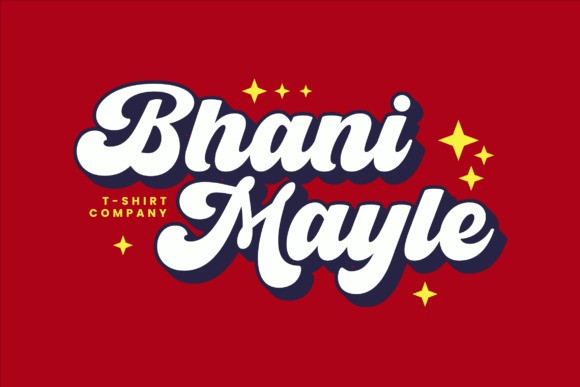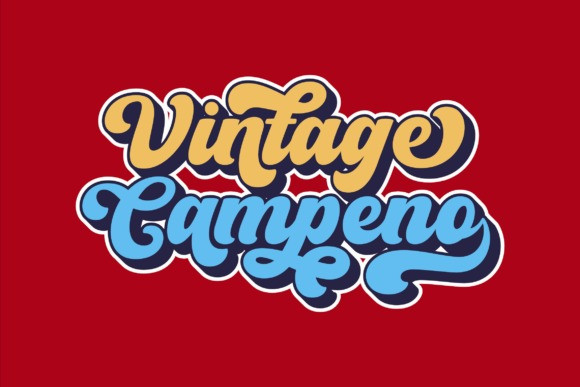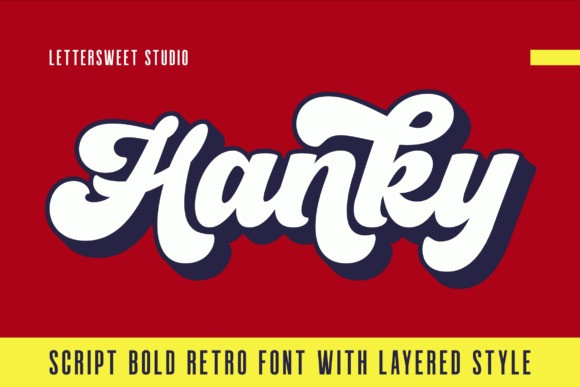
Hanky Retro Font
Hanky Retro Font a bold script retro font with a playful attitude and layered versatility. Inspired by classic sign painting and retro branding, Hanky brings nostalgic charm to any project—from logos and posters to packaging, apparel, and social media graphics.
With its thick strokes, smooth curves, and built-in shadow layer, Hanky makes your text pop with a 3D look that’s full of character and energy. Whether you’re crafting a retro brand or want a standout title, this font gives your work a fun, dynamic edge.